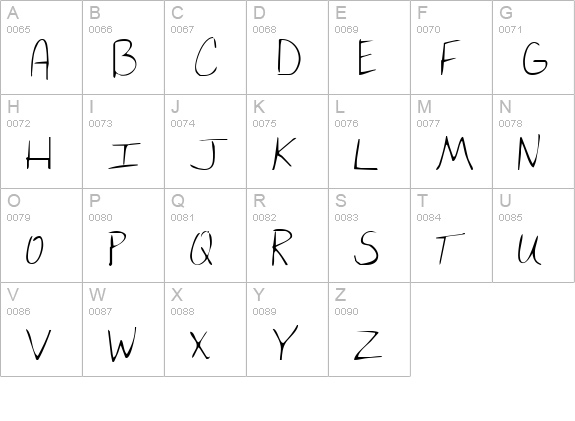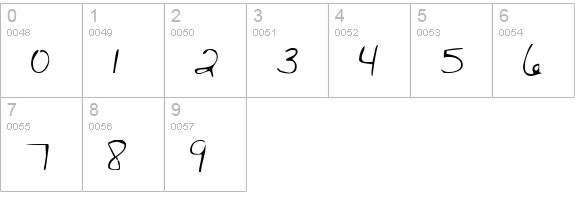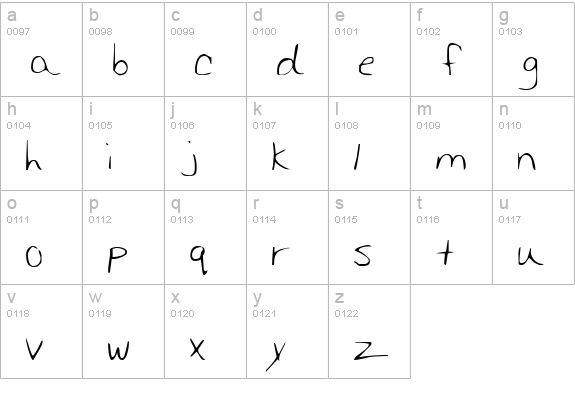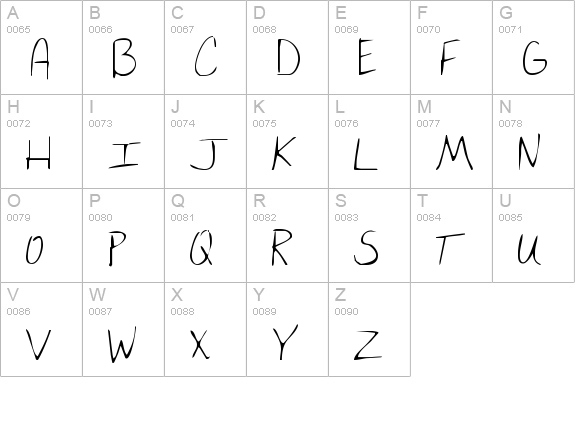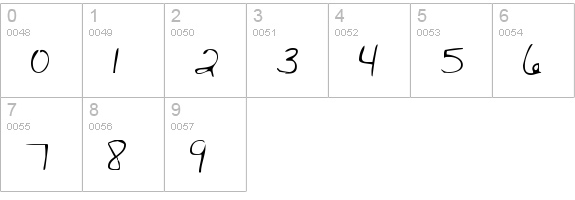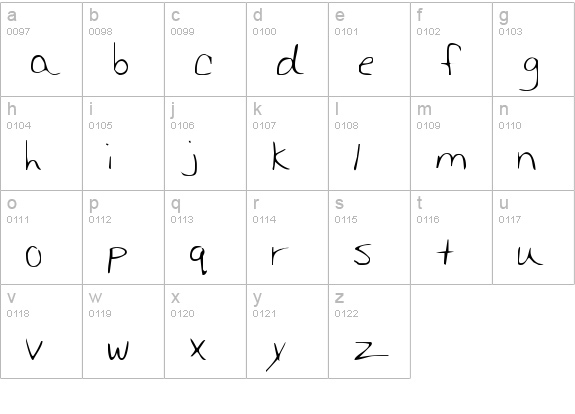
The Merri Christina font is a charming and elegant typeface that exudes a sense of sophistication and grace. With its delicate and flowing curves, this font is perfect for adding a touch of elegance to any project. Whether you're designing a wedding invitation, a logo, or a branding project, Merri Christina is sure to make a statement. What makes Merri Christina even more appealing is that it is available for free download at FontsMarket.com. This means you can easily access this beautiful font and use it in your designs without any cost. Don't miss out on the opportunity to enhance your projects with the timeless beauty of the Merri Christina font. Download it today and elevate your design game to the next level.